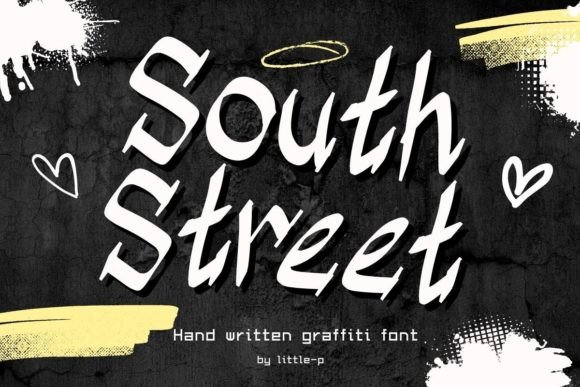
Prepare yourself to witness a typographic revolution with "South Street," the jaw-dropping display font that exudes raw energy and urban charm. Let your imagination run wild as you explore its vibrant graffiti style, meticulously crafted to ignite your creative spirit.
Unleash your artistic prowess and design captivating branding that leaves an indelible mark on your audience. Craft eye-catching logos that command attention and resonate with your brand's unique personality. Transform ordinary headings into masterpieces that demand attention, captivating your readers with their bold and playful presence.
Embark on a creative journey, letting "South Street" guide you as you create trendy T-shirt designs that ooze street style and individualistic flair. Design striking labels that elevate your products, making them stand out amidst a sea of mediocrity. Create unique stickers that add a touch of rebellion and personality to any surface.
Let "South Street" empower you to express yourself like never before. Its edgy letterforms will infuse your designs with a raw and energetic vibe, reflecting your bold and confident personality. Dare to be different, dare to embrace the urban chic, and let "South Street" take your creativity to exhilarating new heights.